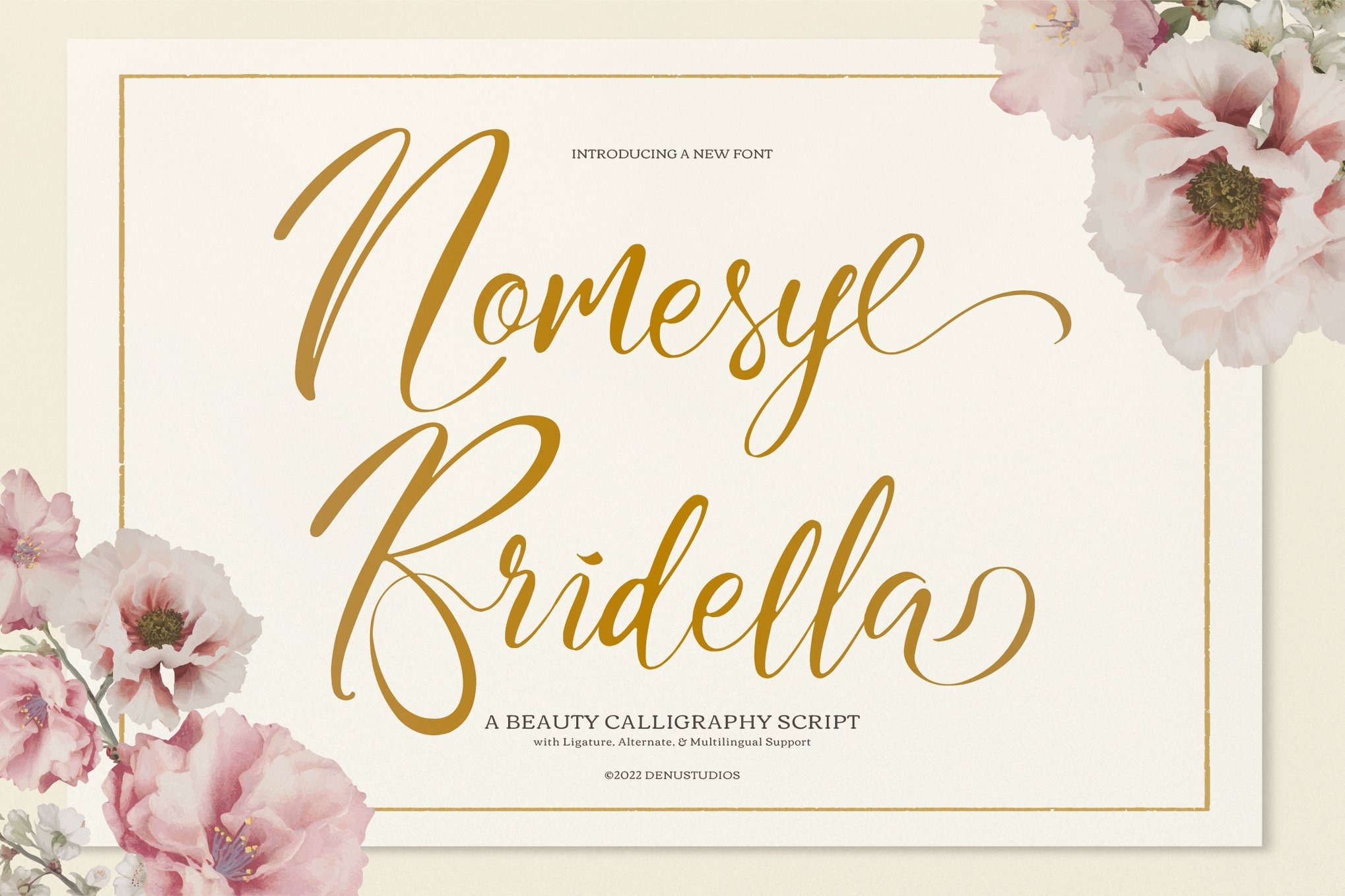
Nomesyl Bridella – Beauty Calligraphy Script Font
Nomesyl Bridella – Beauty Calligraphy Script Font is a distinctive and expressive font crafted to bring personality, structure, and creative energy into your projects. The Nomesyl Bridella font is designed to deliver a strong, versatile visual character, balancing aesthetics and readability. Every detail is carefully crafted to ensure a clear, consistent, and visually appealing result across a wide range of design needs. With well-structured letter proportions and support for features such as alternate characters and ligatures, this font allows for greater creative exploration. The final result is dynamic, distinctive, and professional, making it adaptable to a range of design styles.